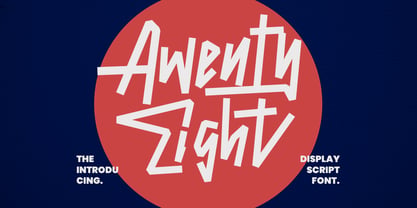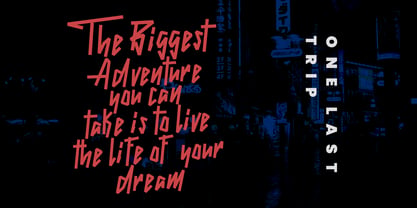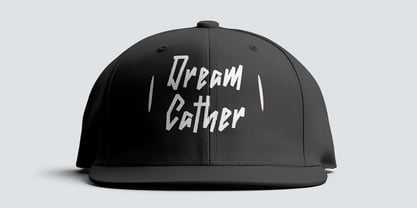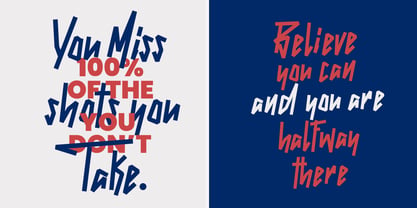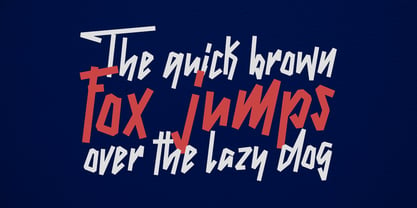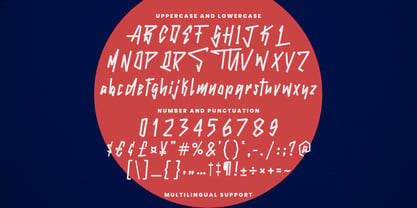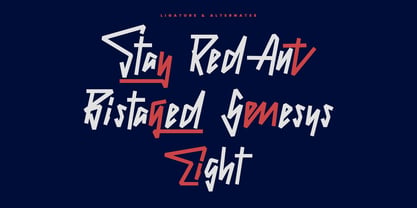
MC Awenty Eight
by Maulana Creative
The MC Awenty Eight Font Family was designed by Gilang Maulana and published by Maulana Creative. MC Awenty Eight contains 1 styles. More about this family
Give your designs an authentic brush handcrafted feel. “Awenty Eight Display Script Font” is perfectly suited to signature, stationery, logo, typography quotes, website header, branding and more.
Designers: Gilang Maulana
Foundry: Maulana Creative